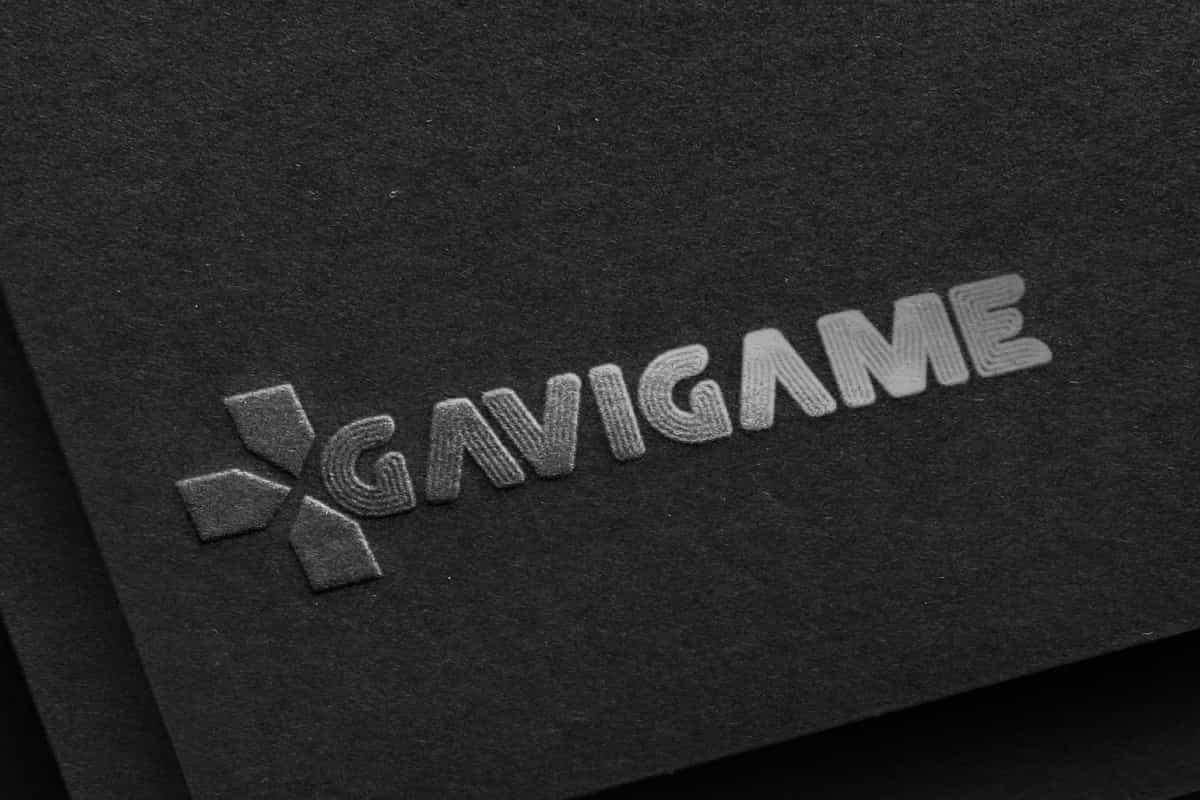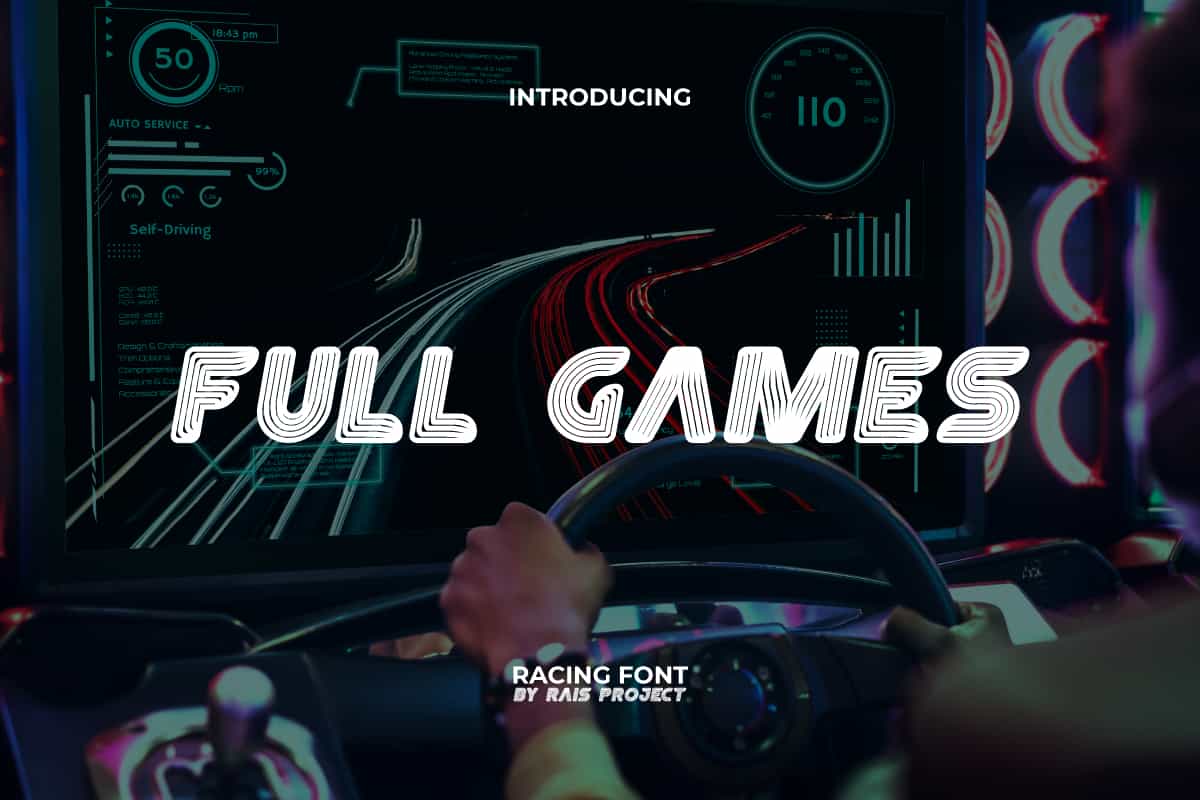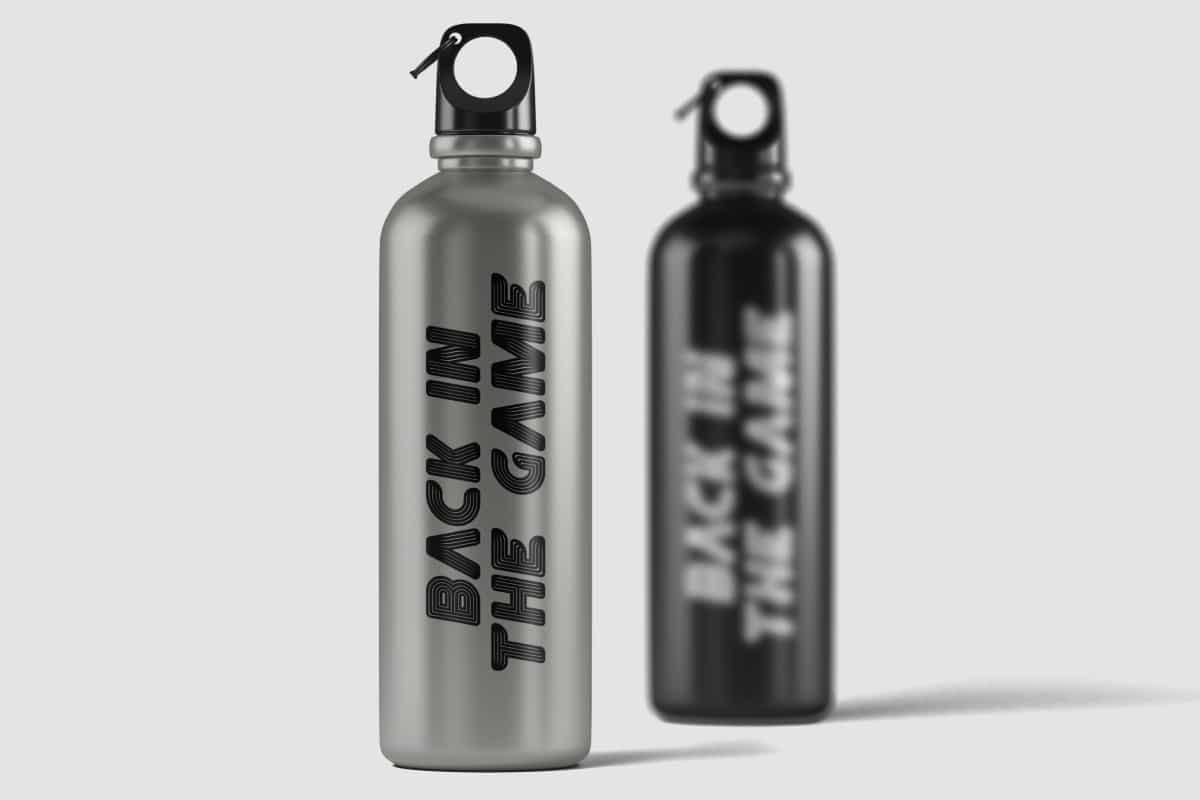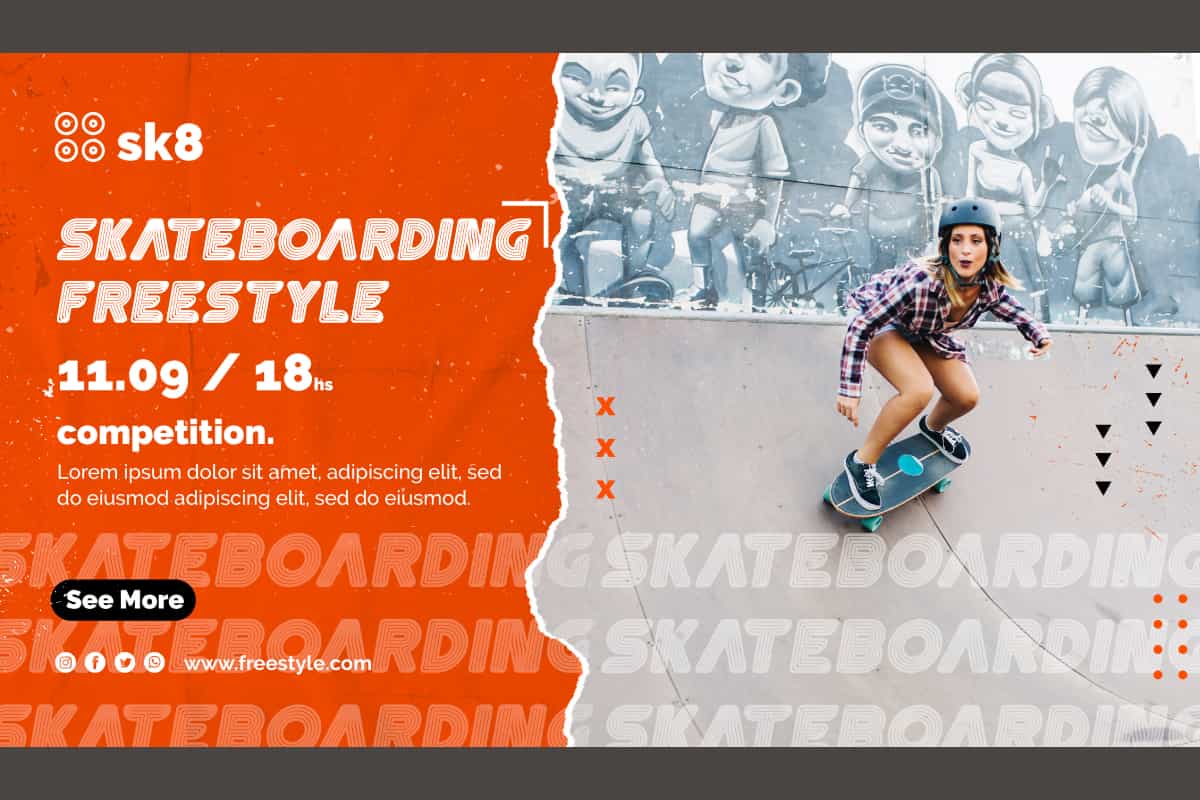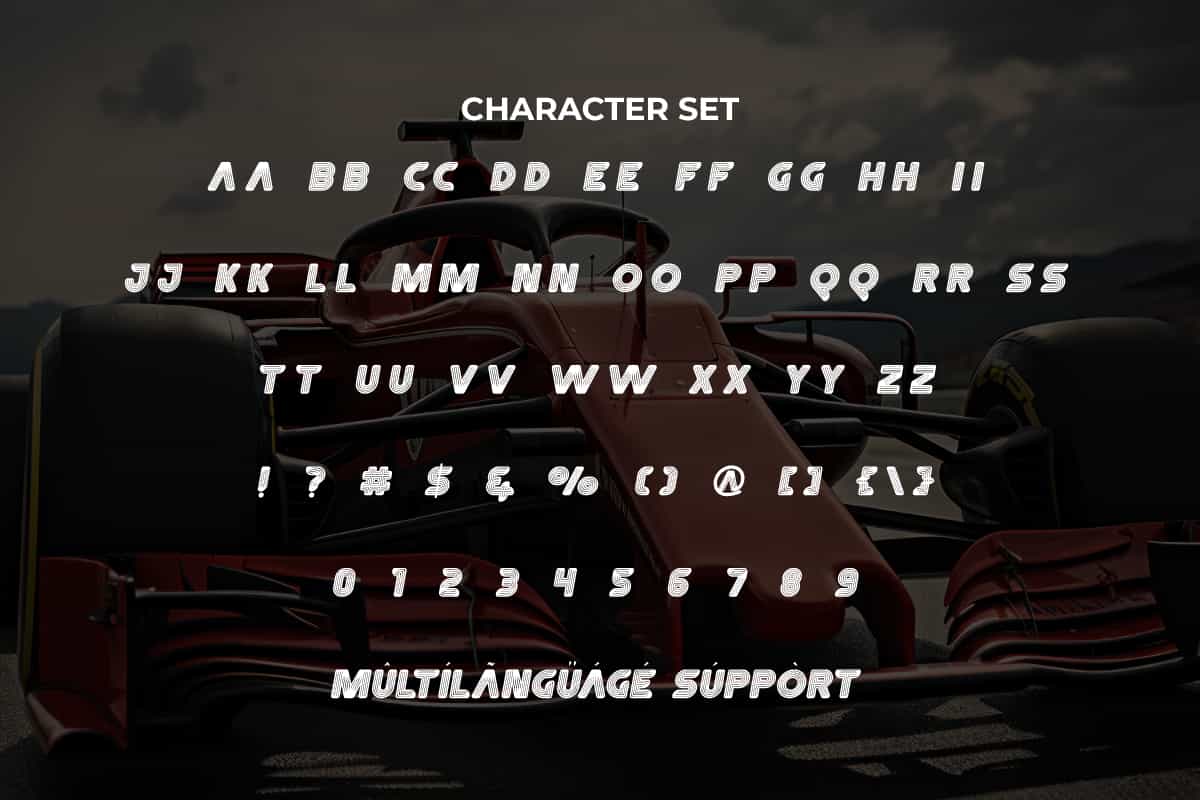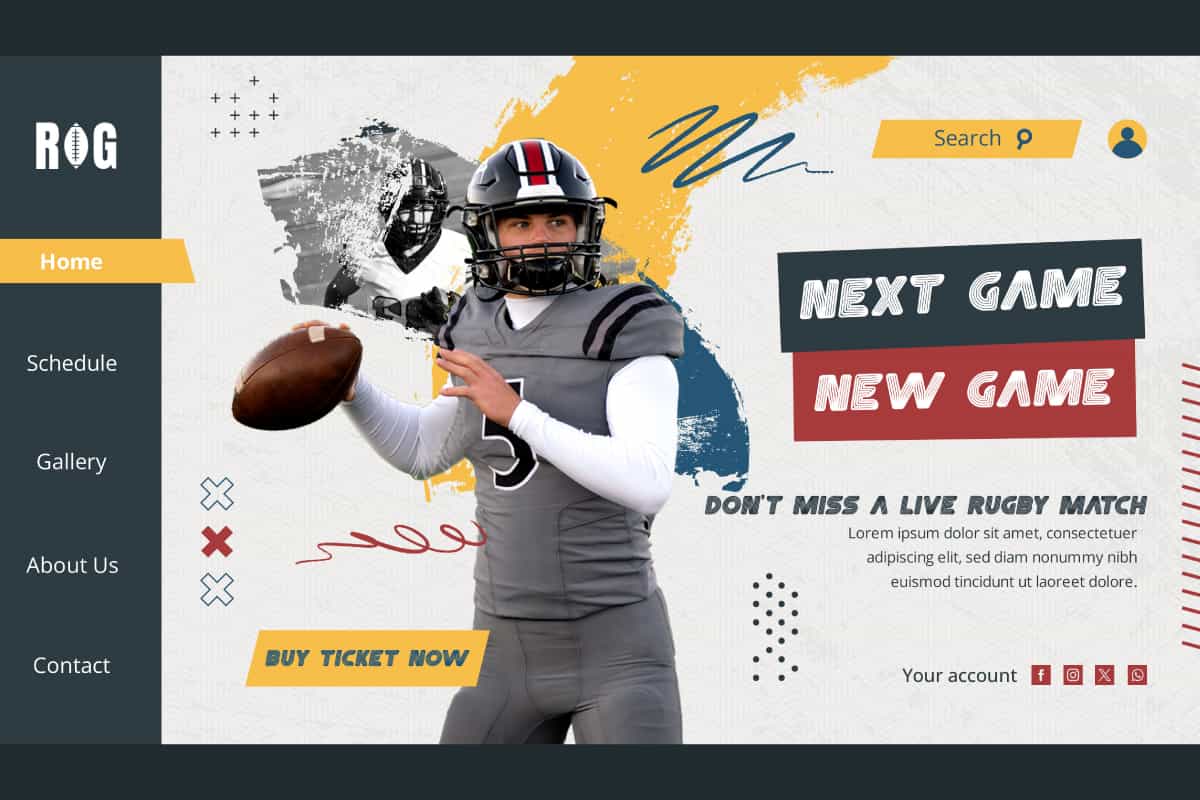
Full Games Display Font
Full Games Font is a playful and varied font with a racing theme. Create more creative designs using this font!
Full Games Font is a playful sporty racing font with creative touch created by RaisProject. The lines within the letters give this font a unique and fun character to add to your design. It will be good for poster, signage, stationery, custom design, product packaging, quotes, poster, brand image, advertisement, invitation, label, marketing material, website page, and more!
Introducing Full Games Display Font – a bold, playful, and dynamic typeface designed to bring energy and creativity to your projects. Inspired by the excitement of gaming culture, this font is perfect for logos, branding, esports teams, streaming channels, posters, and merchandise. With its eye-catching style and modern edge, Full Games is built to capture attention and make your designs unforgettable.
Full Games Display Font combines bold shapes, clean lines, and a strong visual presence, making it the ideal choice for gaming graphics, event promotions, tech branding, and digital content creation. Its versatility allows it to work seamlessly across both print and digital platforms, ensuring your message stands out wherever it’s seen.
Typography is key to building a powerful visual identity, and Full Games Display Font delivers a unique style that blends fun, energy, and modern professionalism. Perfect for designers, streamers, content creators, and brands looking to appeal to gaming audiences, this typeface helps your projects stand out in a competitive market.
Full Games Display Font includes a full set of ALL CAPS for Uppercase and Lowercase Letters, Numerals, and large range of Punctuation. This modern font will be suitable for various industries, such as sports, automotive, fashion, game, barber shop, cafe, event or festival, photography, printing, publishing, etc.
Let's make amazing work with Full Games Display Font!